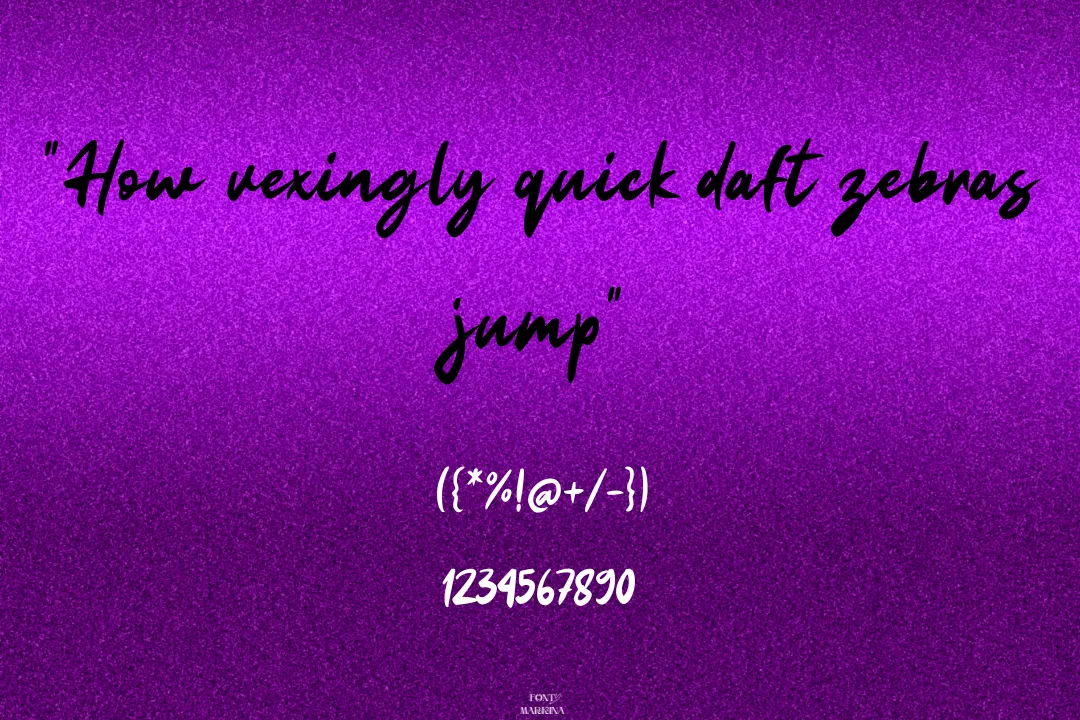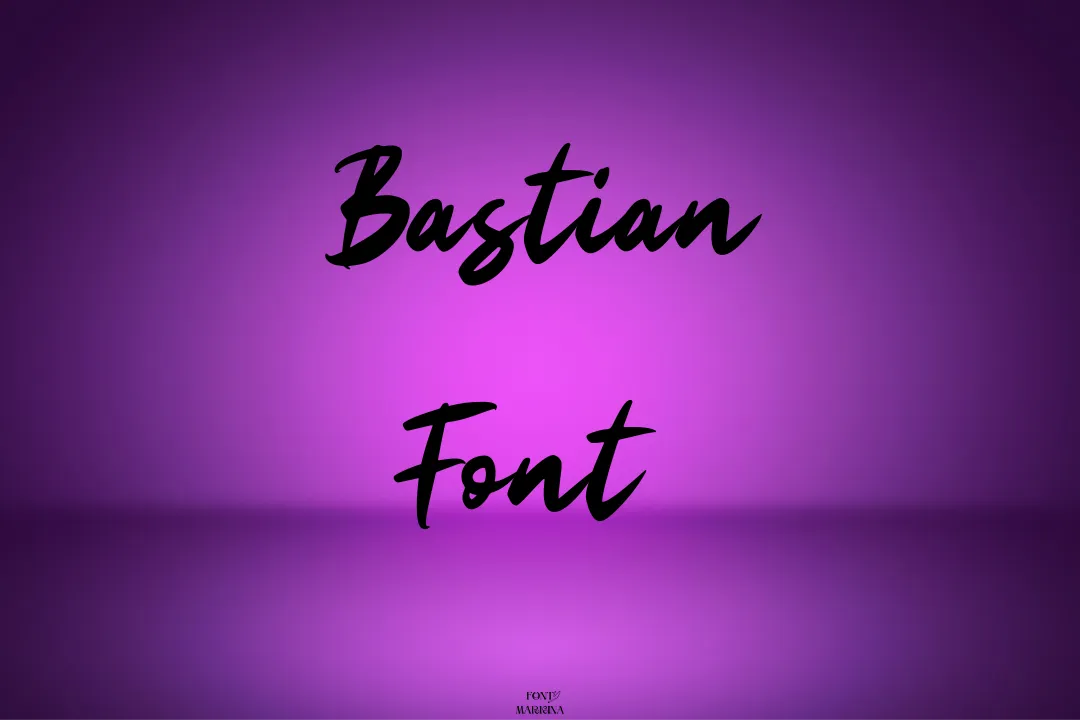
The Bastian font is a brush typeface designed by Weape Studio in 2021. It’s a modern font with a clean and stylish design that makes it ideal for use in a variety of contexts, such as headlines, logos, and body text.
It is available in a number of different weights and styles, including regular, bold, italic, and light, giving designers the ability to create a variety of typographic styles.
It supports Latin, Greek, and Cyrillic scripts. Since its release, the Bastian font has gained popularity among designers and has been used in a variety of different contexts, including corporate branding, advertising, and editorial design.
Uses of Bastian Font
This font has a modern aesthetic texture. it is a popular choice for corporate branding. It can be used in logos, business cards, and other corporate materials to convey a sense of professionalism and modernity.
Its legibility and versatility make it a great choice for use in advertising campaigns. It can be used in print ads, billboards, and other advertising materials to deliver a clear and impactful message.
The Bastian font’s versatility and range of weights and styles make it a popular choice for graphic designers working on a wide range of projects, such as posters, flyers, and brochures.
Bastian Font View
Does the Bastian typeface have a bold or italic version?
Yes, this is available in different weights and styles, including bold and italic. This allows designers to create a variety of typographic styles with the font.